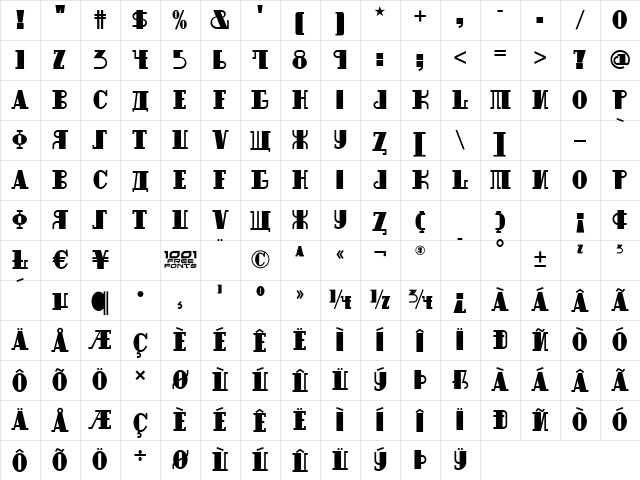
Raskalnikov NF Regular
Foundry: Nick's Fonts
Designer: Nick Curtis
Design Context for Raskalnikov NF
Raskalnikov NF is a composed and adaptable typeface that performs quietly and consistently across a wide range of design contexts.